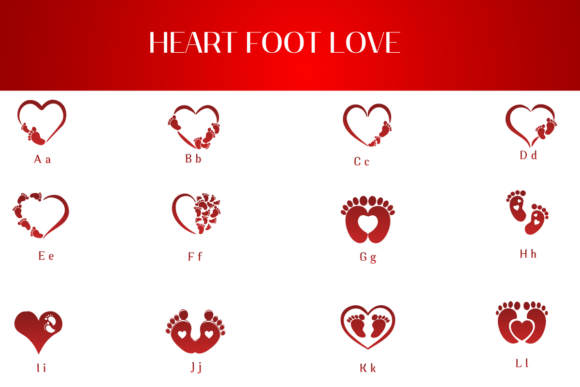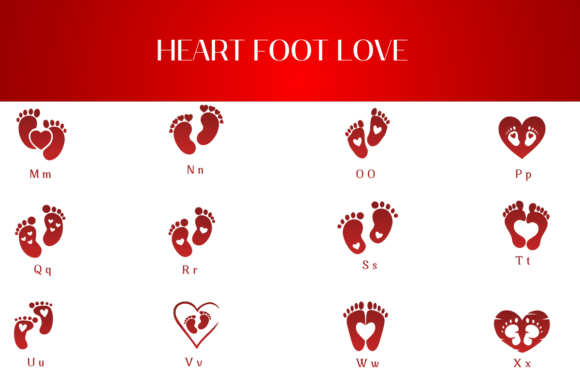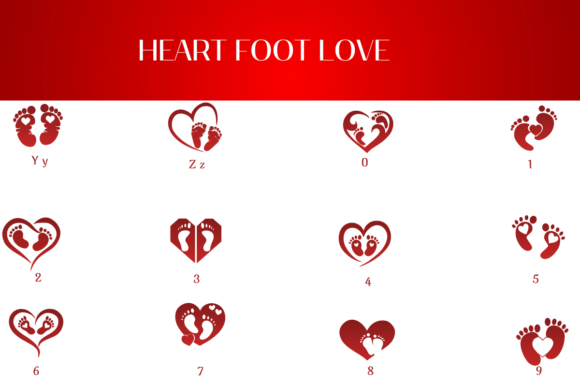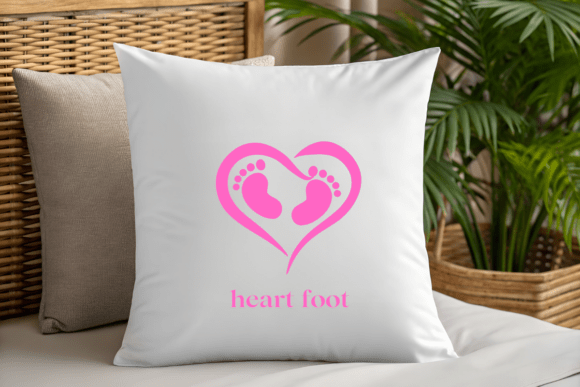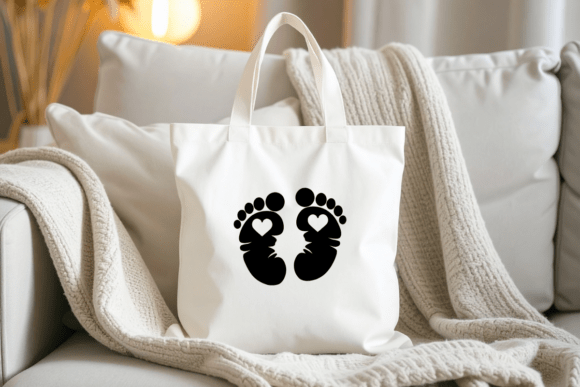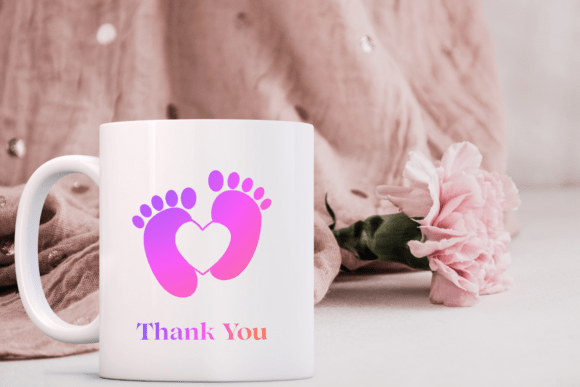
Introduction to Heart Foot Love Font Font
Fonts play a crucial role in design, and the Heart Foot Love Font font is a typeface that brings both character and versatility to any project. Whether you’re working on a branding project, a website, or a print design, the Heart Foot Love Font font offers a unique style that can elevate your work.
| 📌 Font Name | Heart Foot Love Font |
| 👤 Author | Heartcraft Atelier |
Heart Foot Love is a lovely dingbats font.
Key Features of Heart Foot Love Font Font
Why Choose Heart Foot Love Font Font?
The Heart Foot Love Font font is more than just a typeface – it’s a design tool that helps you communicate your message with style and clarity. Its unique character set and versatile design make it suitable for a wide range of applications, from elegant invitations to bold headlines.
With its carefully crafted letterforms and balanced proportions, the Heart Foot Love Font font ensures readability and visual appeal across all mediums.
What makes Heart Foot Love Font font special?
The Heart Foot Love Font font stands out with its unique design, exceptional readability, and versatility across various design applications.